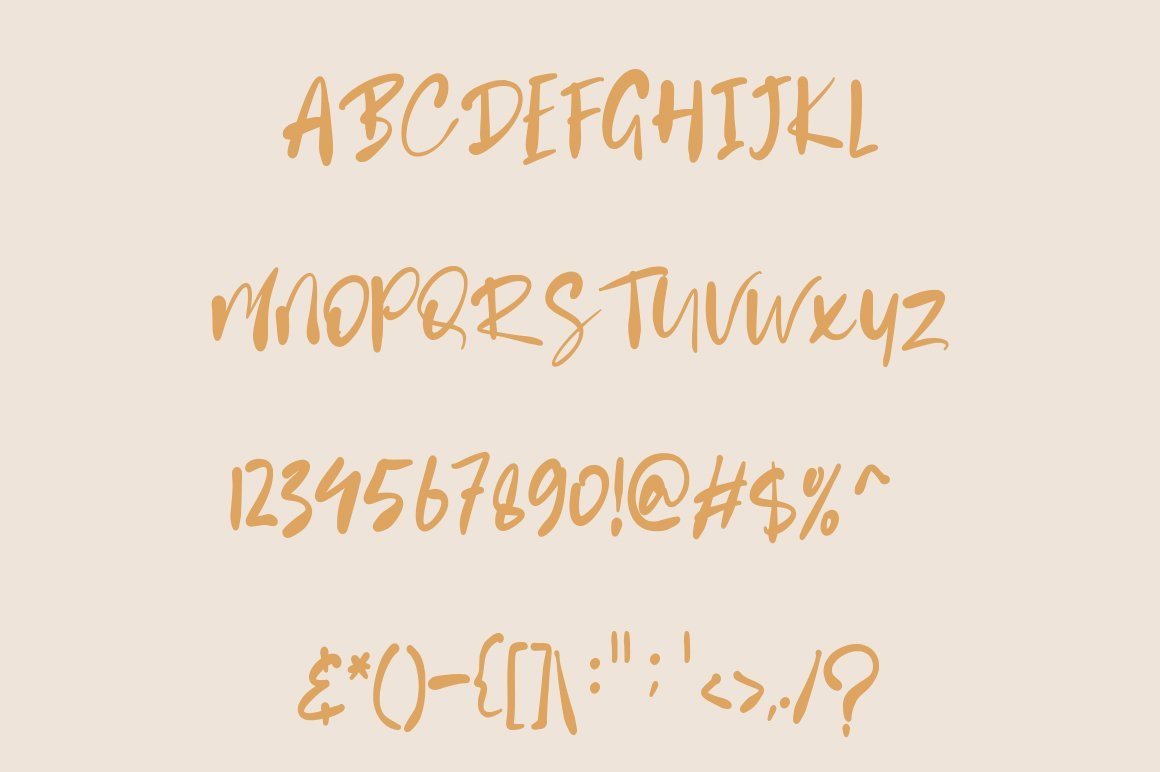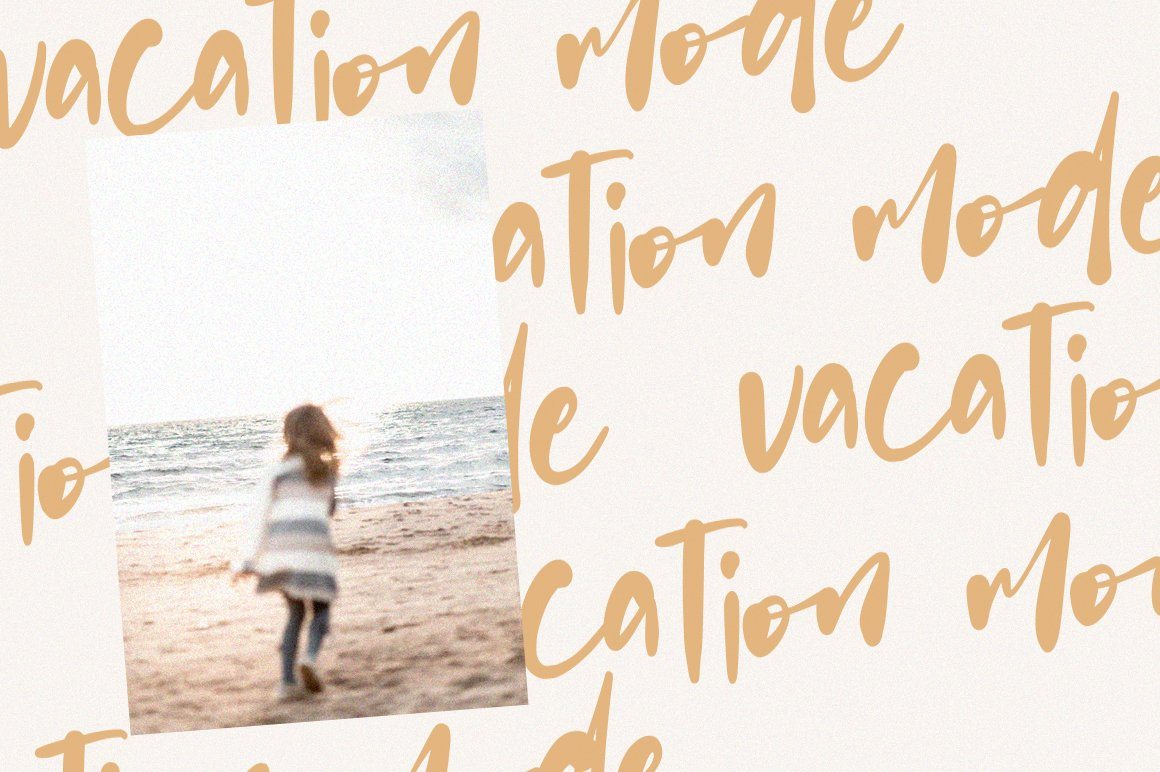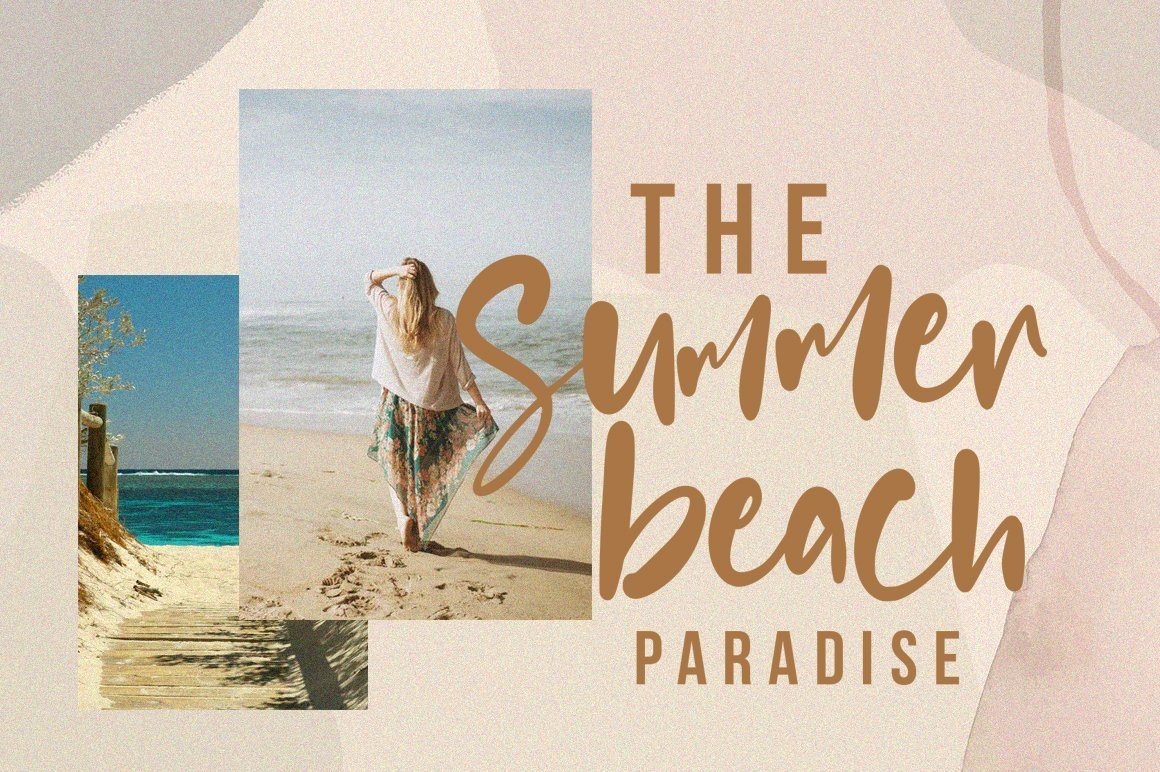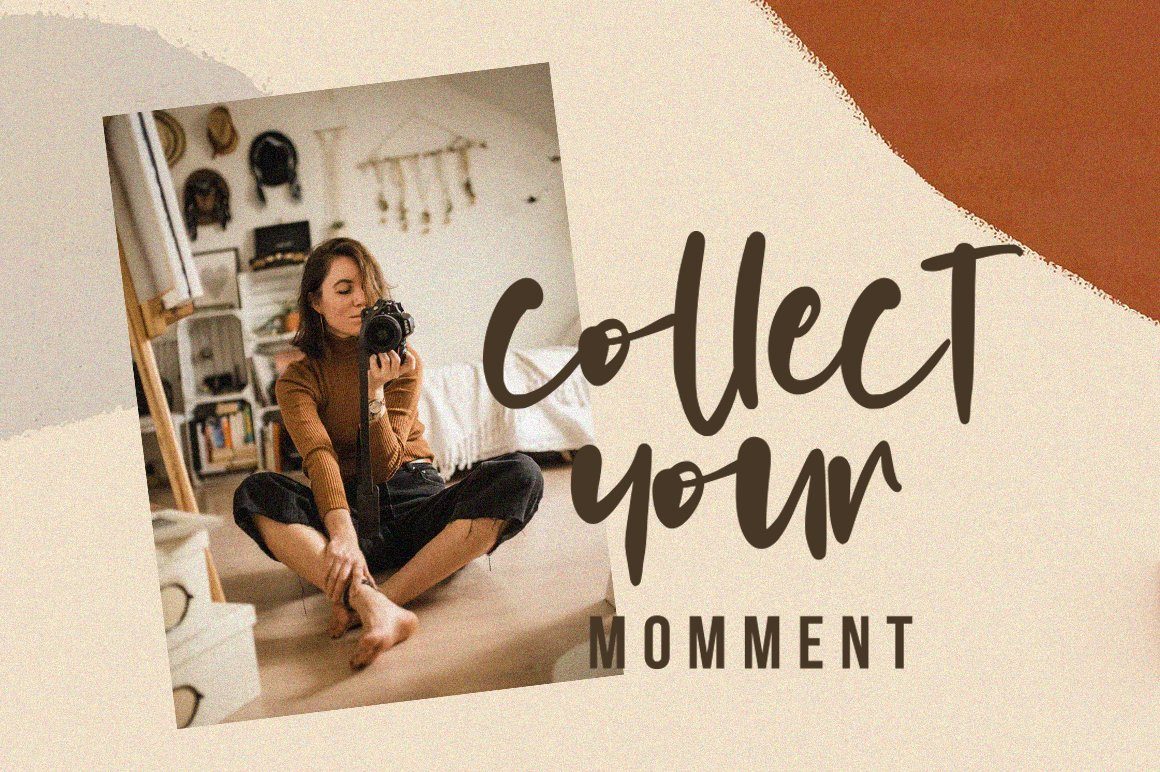
About Battnise – Brush Font
Battnise is an authentic brush font. Clean and a little bit quirky, this font is the perfect fit for all of your logos, branding, social media, and crafty DIY projects. You WIll Get : Zip file containing: either a OTF and TTF files Font Features : Web font file (.WOFF) Uppercase + Lowercase Letters Numbers + Punctuation Ligature Feature OpenType features Multilingual support Compatible with Adobe Illustrator, Adobe Photoshop, Adobe Indesign, Word, Corel draw, inkscape Silhouette Studio, Cricut Design Space, Scan N Cut, and other cutting and design programs Any questions? feel free to send us a message. Have a great day !